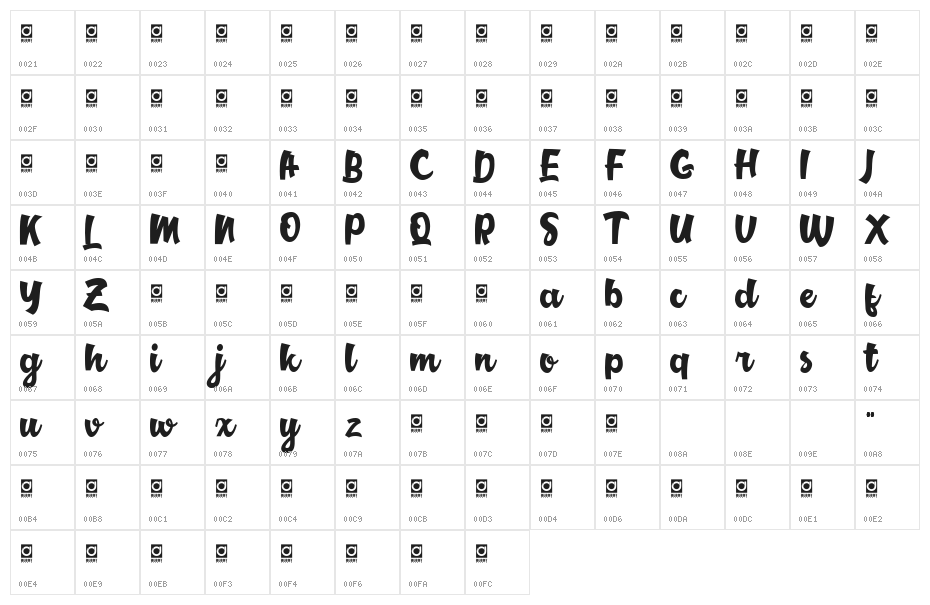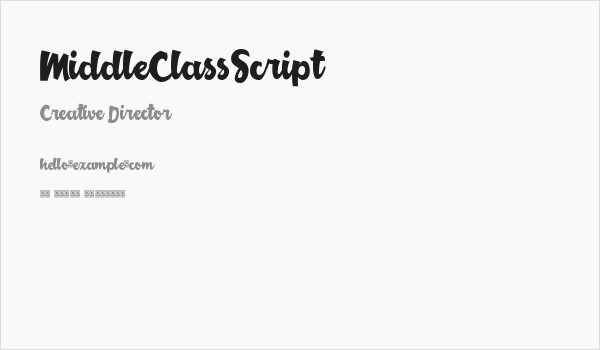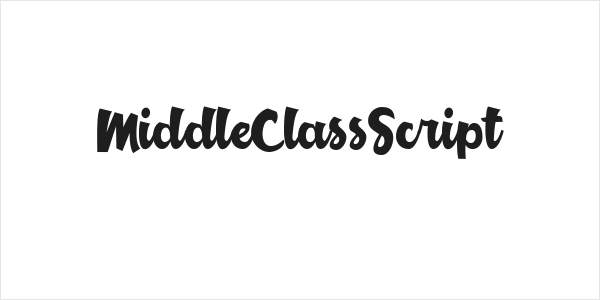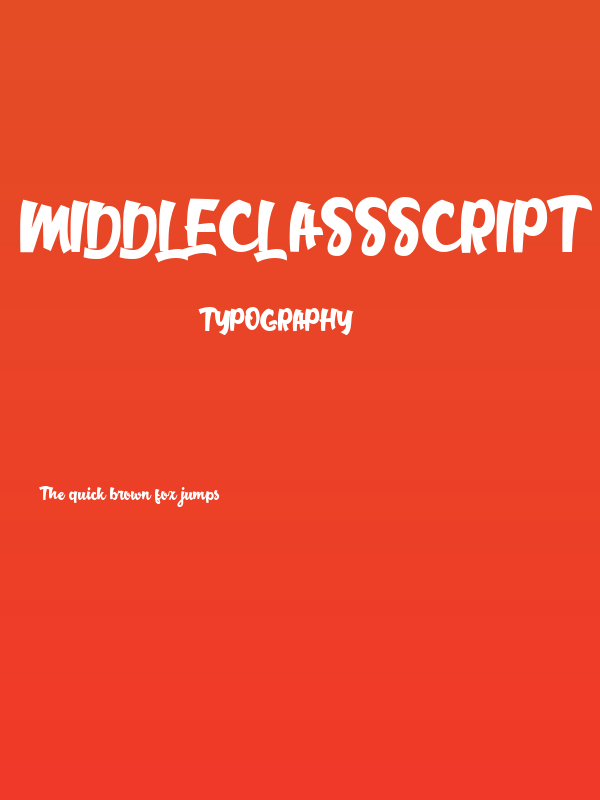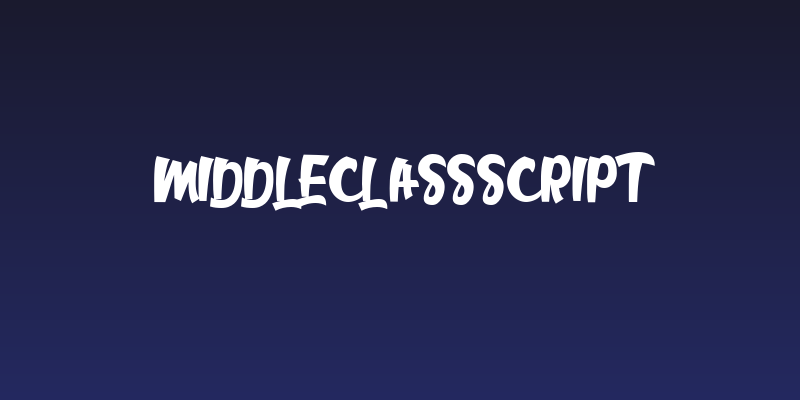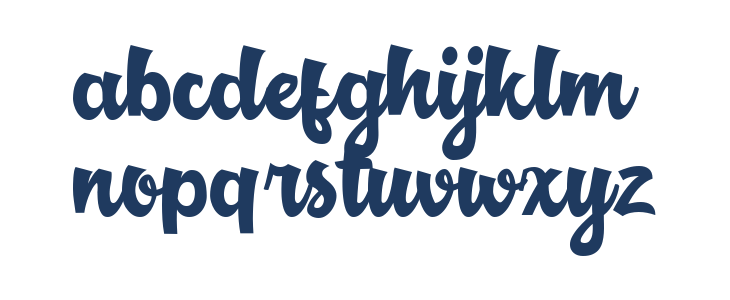
MiddleClassScript Font
MiddleClassScript Description
This font features a bold and expressive script style with a modern flair. The uppercase letters are characterized by their thick strokes and dynamic curves, giving them a strong presence. The lowercase letters maintain a consistent flow, with smooth connections between characters, enhancing readability while retaining a stylish appearance. The font's design is playful yet sophisticated, making it suitable for a variety of creative projects. Its unique style is further emphasized by the consistent weight and width across all characters, providing a cohesive look. The font is versatile, capable of adding a touch of elegance and personality to any design.
| Use Case | Logos, Headlines, Invitations |
| Proposed Projects | Ideal for branding, logo design, invitations, and social media graphics. |